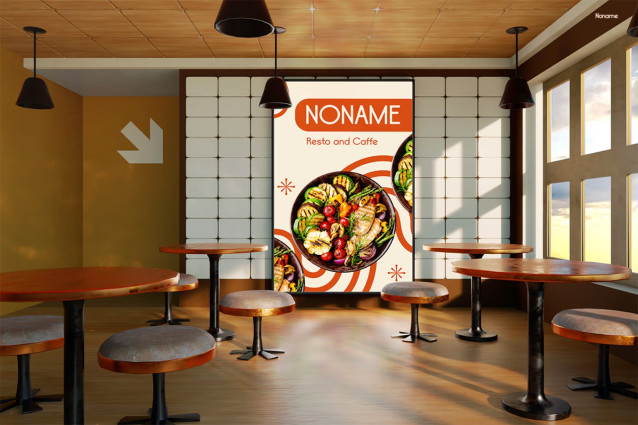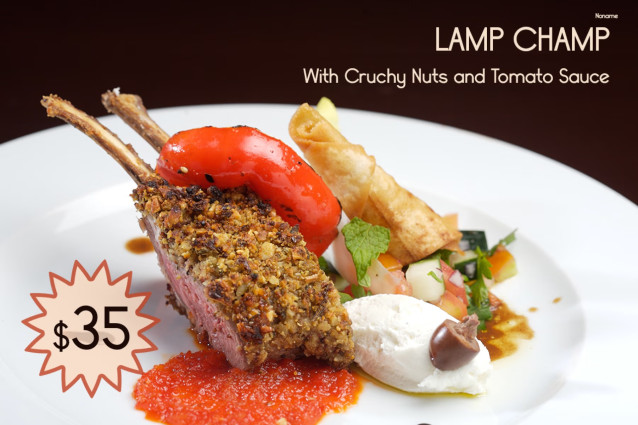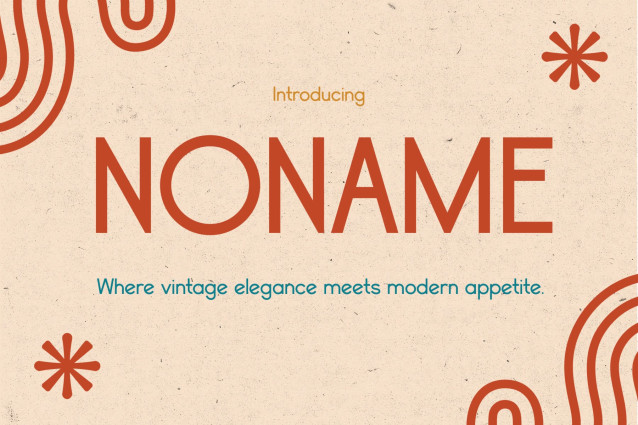
Noname Font
Retro Font Noname blends vintage charm with modern clarity; therefore, it creates a timeless yet stylish visual identity. Moreover, its clean letterforms, subtle retro details, and balanced spacing make it both elegant and highly readable. As a result, this font stands out in editorial layouts, restaurant branding, and premium packaging.
In addition, its aesthetic captures a warm nostalgic feel while still looking fresh and contemporary. Not only that, but with Multilingual Support (67 Languages), it ensures your designs communicate seamlessly across global audiences.